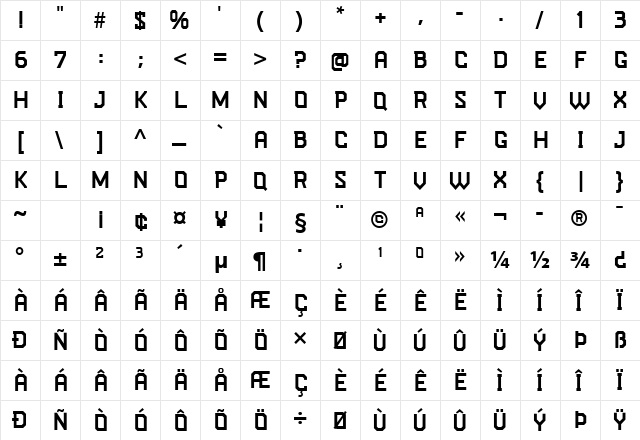
Tough Love Display
| Style | Display |
| Foundry | Archetype |
Design Context for Tough Love Typeface
Tough Love brings ornamental detail and strong personality to headlines and identities, where visual impact matters more than quiet functionality.
Font Pairing: Pair with a clean neutral sans-serif for body copy to let Tough Love's character lead without overwhelming the composition.
Pro Tip: Treat Tough Love as the centrepiece of your typographic hierarchy. One strong heading set in a decorative face can carry an entire layout.